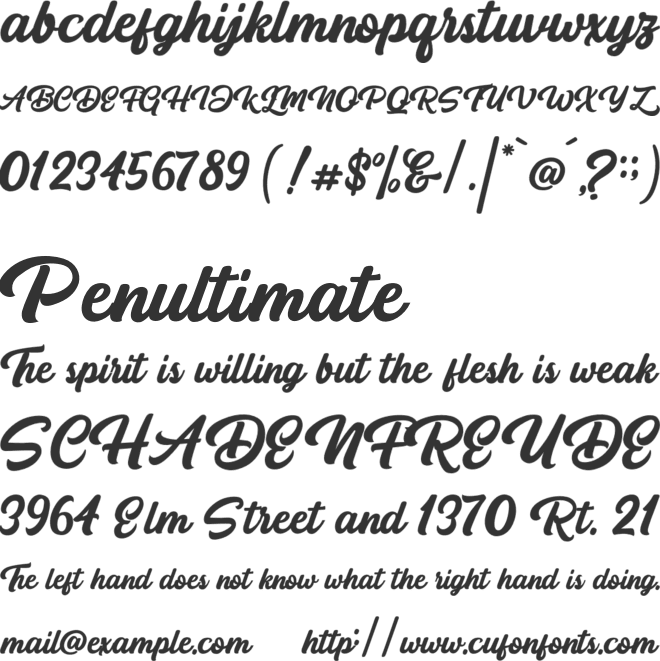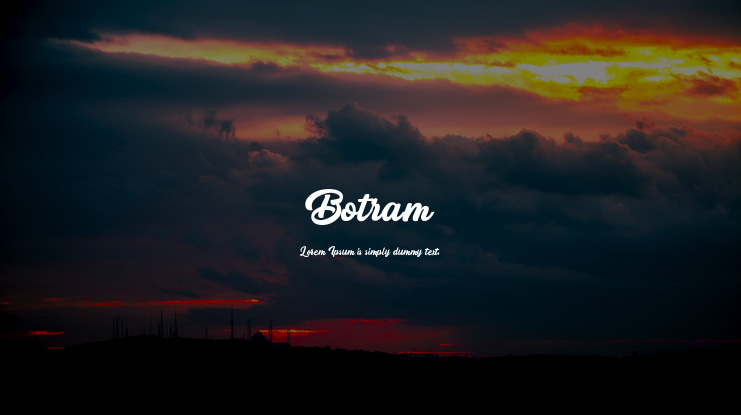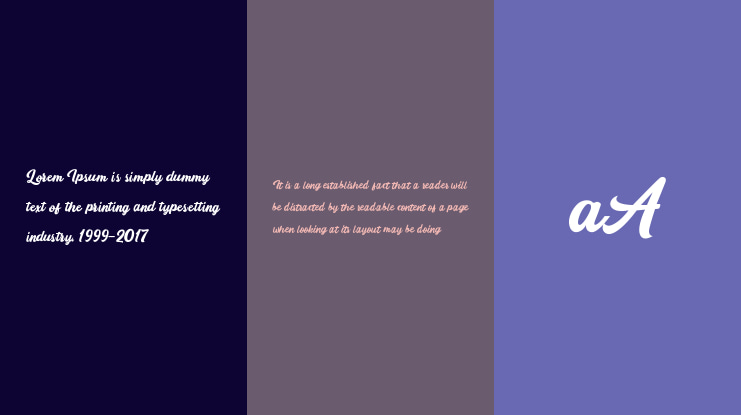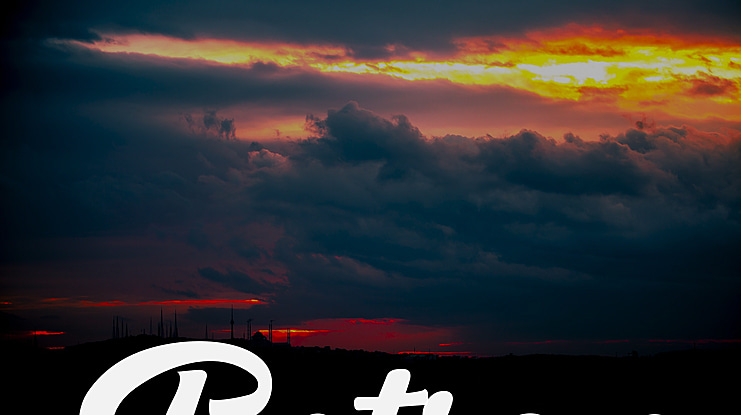
Botram Font
Budi Erlangga
The Botram is a modern script font. It has a striking style and is perfect for logos, wedding designs, advertisements, labels, and much more!